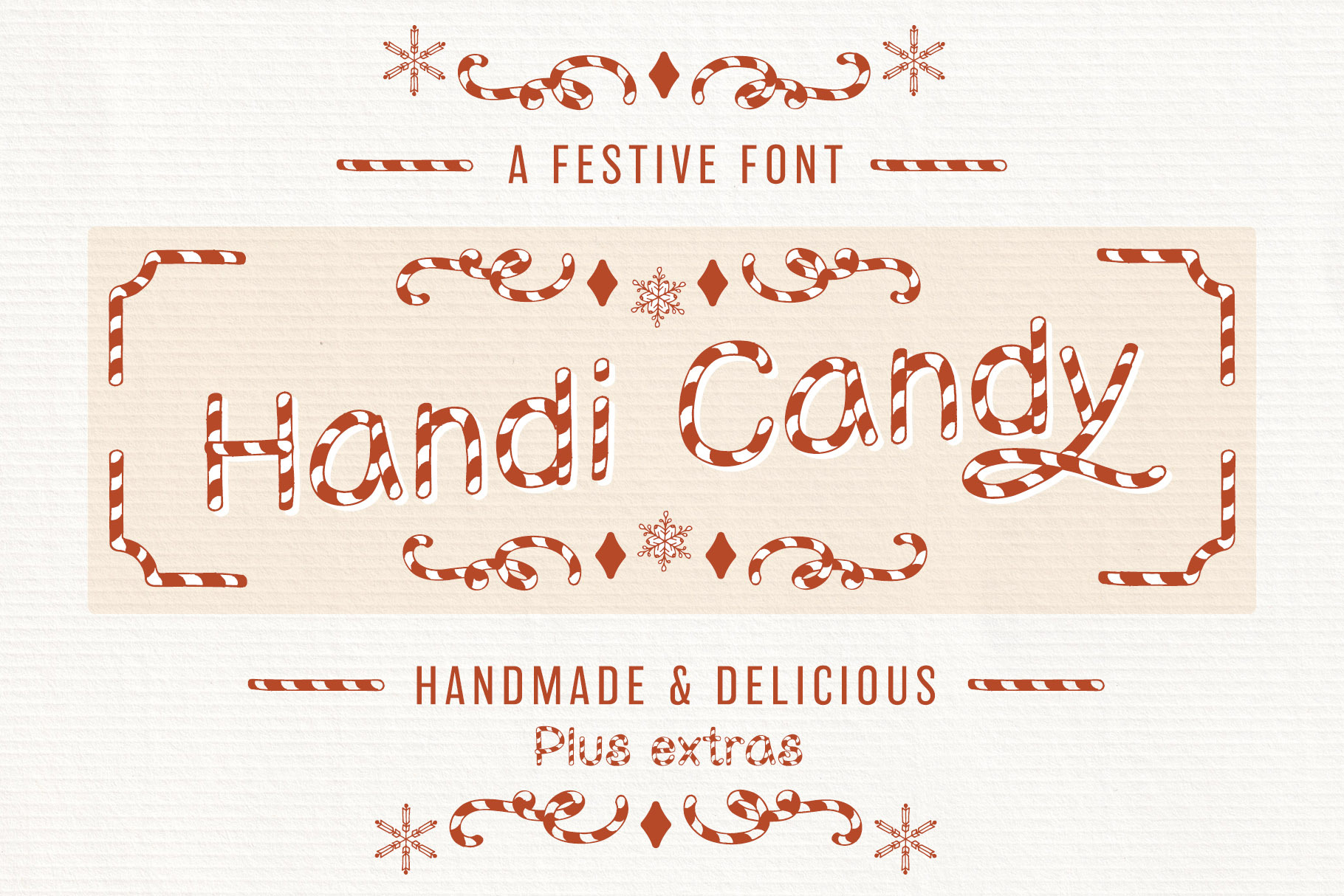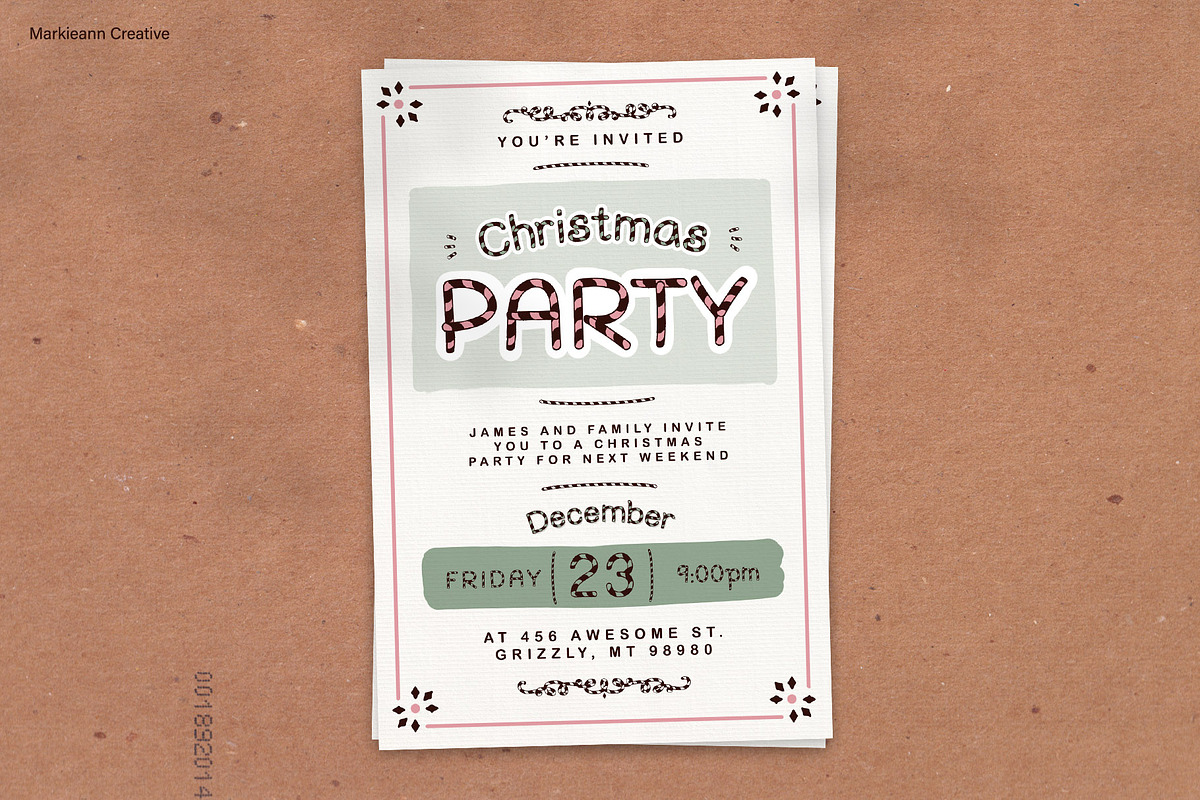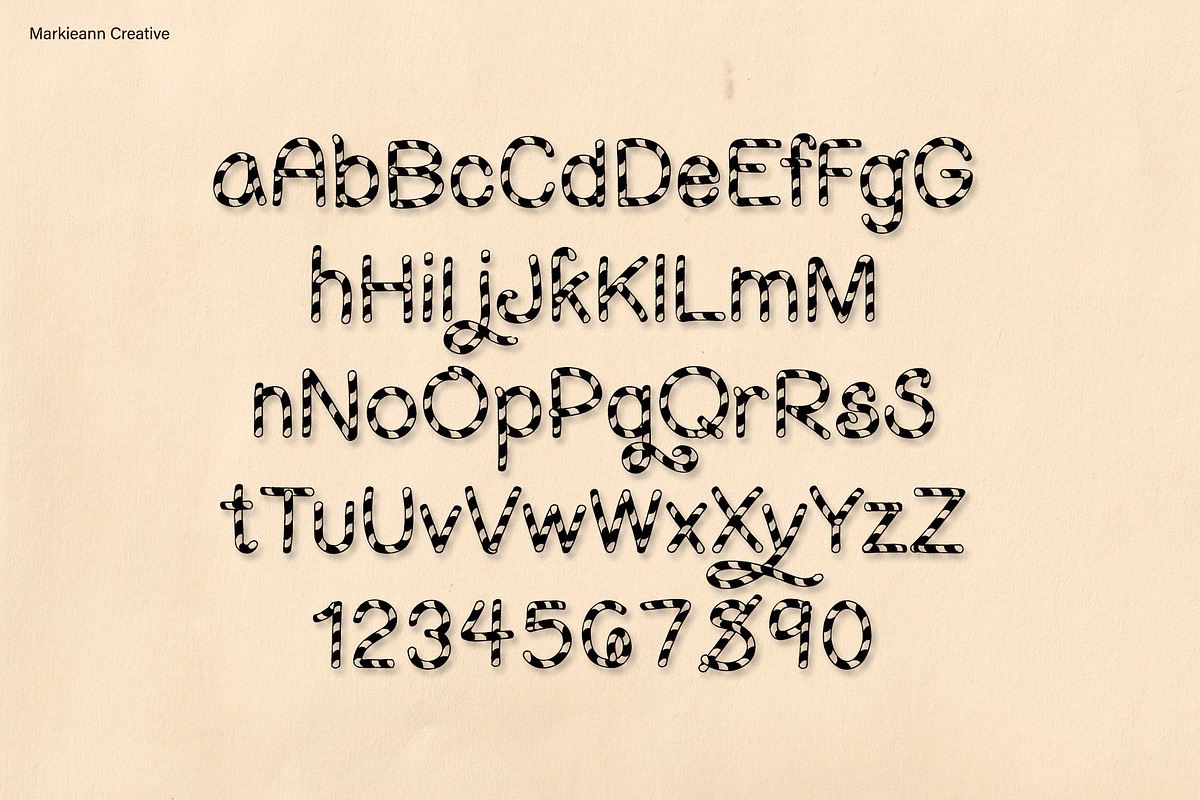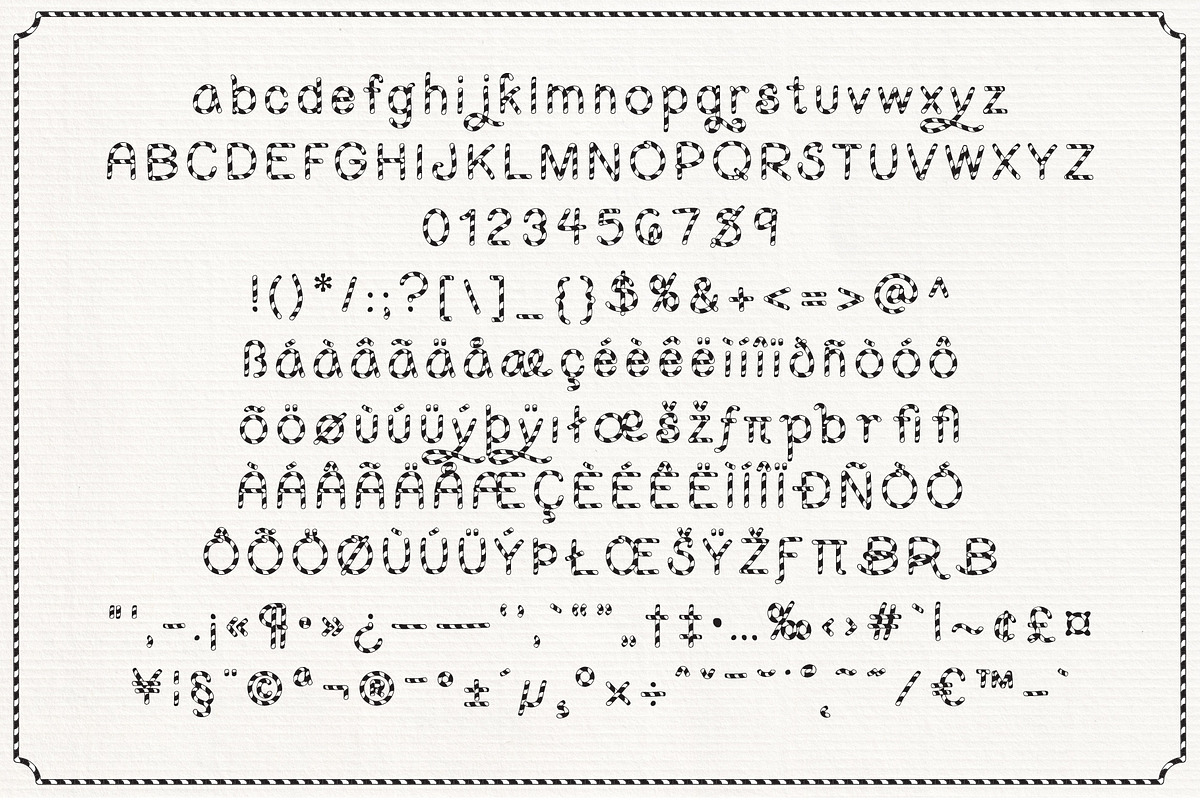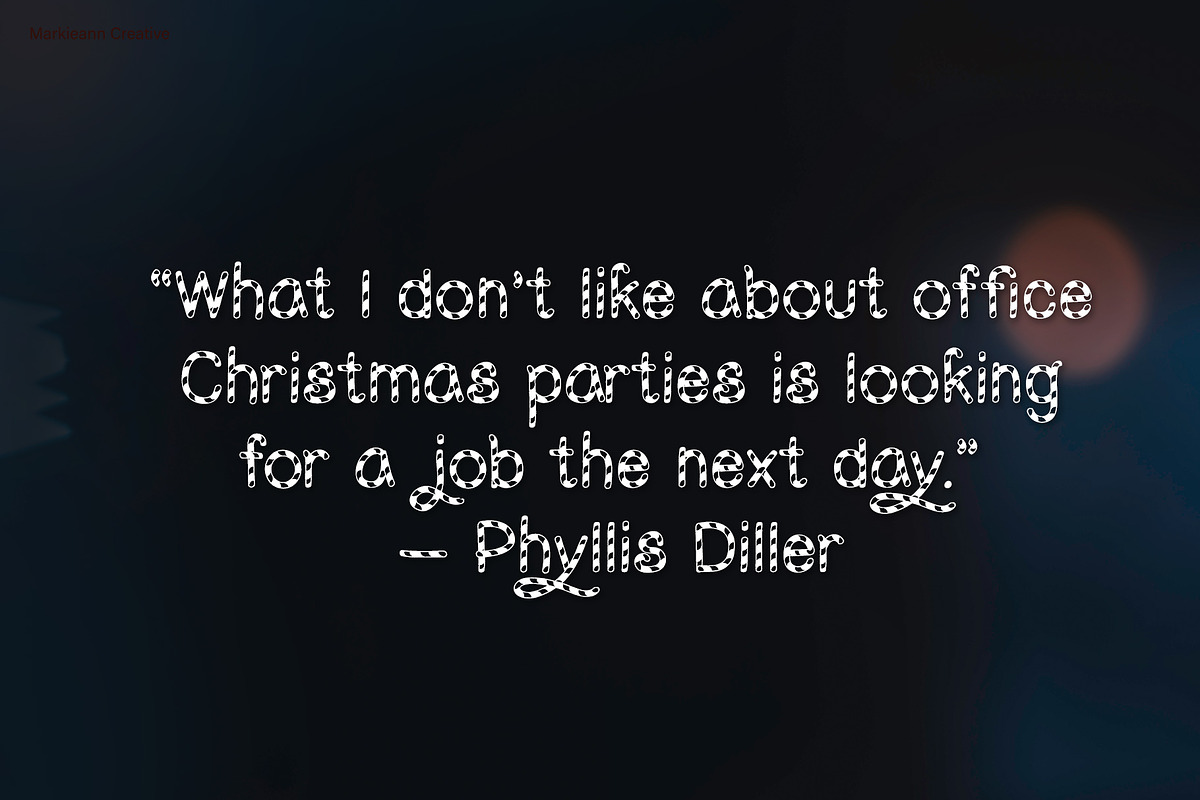
Handi Candy Christmas Cane Font
Handi Candy is a hand-drawn candy-cane inspired font perfect for quirky Christmas invites and displays. Or anywhere else a stripey fun handmade font is needed.
- All basic upper and lower case letters
- Lowercase extra characters: à á â ã ä å æ ç è é ê ë ì í î ï ð ß ñ ò ó ô õ ö ø ù ú ü ý þ ÿ ı ł œ š ž
- Uppercase extra characters: À Á Â Ã Ä Å Æ Ç È É Ê Ë Ì Í Î Ï Ð Ñ Ò Ó Ô Õ Ö Ø Ù Ú Ü Ý Þ Ł Œ Š Ÿ Ž
- More special characters: ! ( ) * / : ; ? [ ] _ { } $ % & + = @ ^ ƒ π Ƒ Π " ' , - . ¡ « ¶ · » ¿ – — ‘ ’ ‚ ‛ “ ” „ † ‡ • … ‰ ‹ › # ` | ~ ¢ £ ¤ ¥ ¦ § ¨ © ª ¬ ® ¯ ° ± ´ µ ¸ º × ÷ ˆ ˇ ˉ ˘ ˙ ˚ ˛ ˜ ˝ ⁄ € ™ −